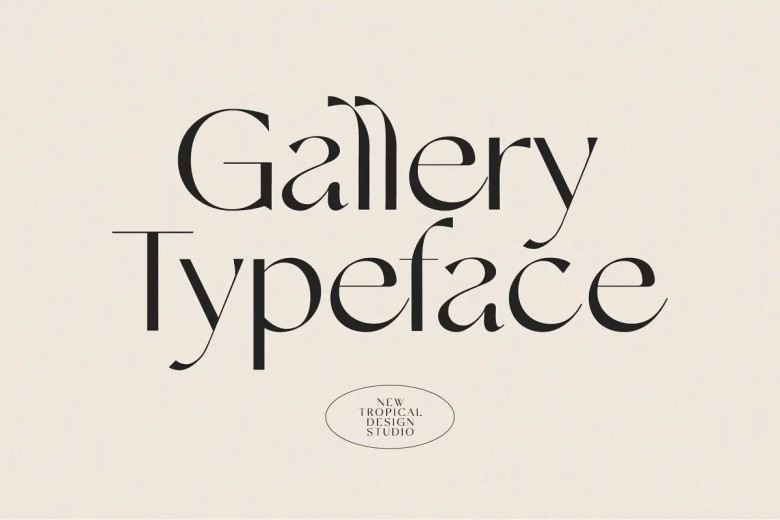
Gallery Sans Font
Gallery Font
Gallery is one more font that can be considered as moderate and at the same time it is very memorable and stylish. A few of the aspects include; the roundness of the a and the curved stems of the ascending letters which make this to be a unique font. If we are to categorise it, it is both a serif font with a touch of the traditional and sans serif modernistic font.
Gallery comes with all its letters in full uppercase, as well as in the lower case letters format accompanied with numerals and any form of punctuation mark + Complete European language support. This font is ideal for any fashion related branding or editorials and it can also be described as having strong and fragile attributes.
Gallery Sans Serif Font